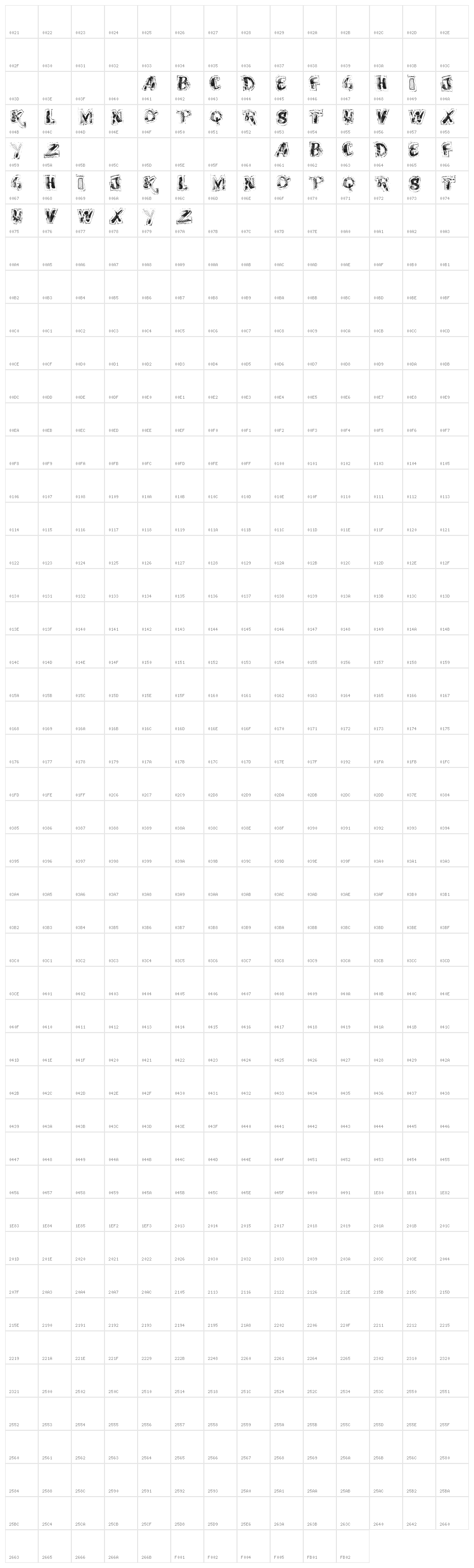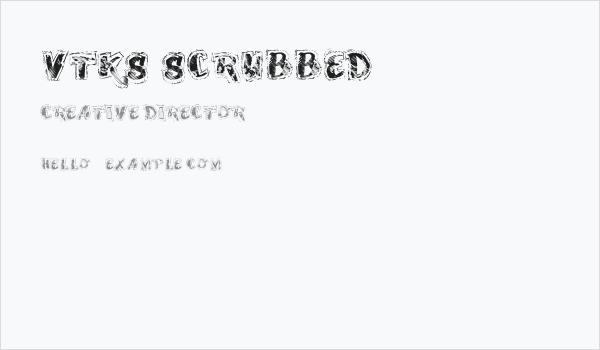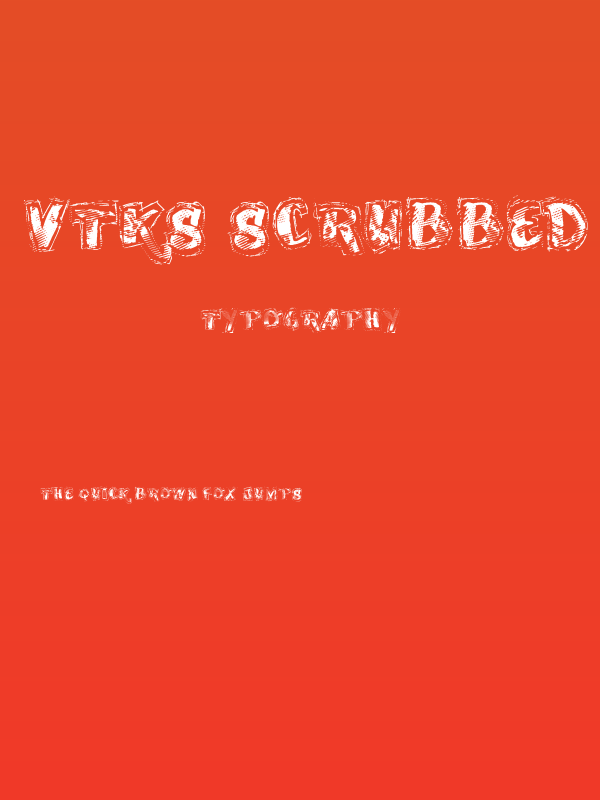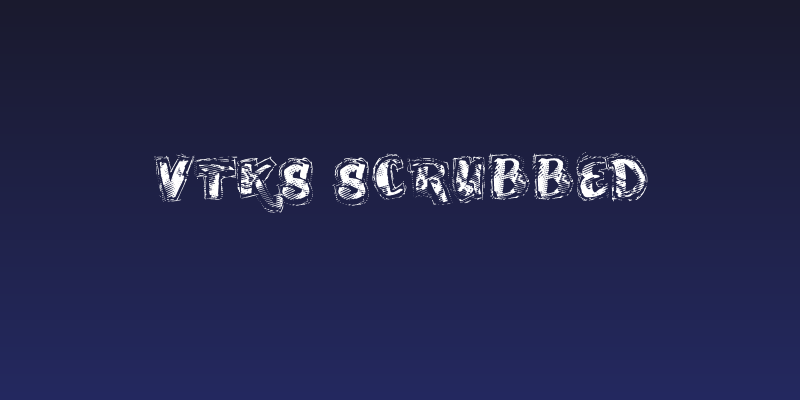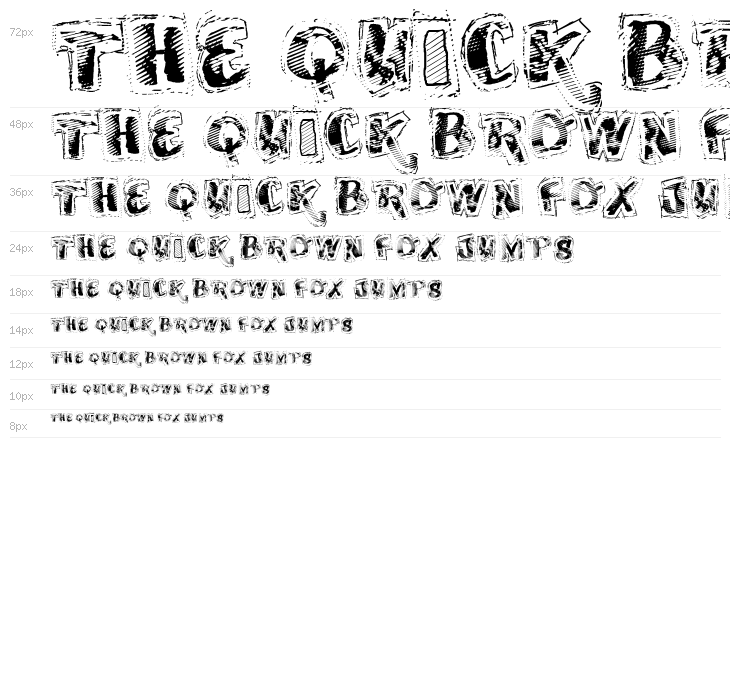
VTKS SCRUBBED Font
| Категория | Crazy |
| Общий стиль | Grunge, Artistic |
| Область применения | Logos, Posters, Album Covers |
| Рекомендуемые проекты | Perfect for album covers, posters, streetwear branding, and edgy graphic designs. |